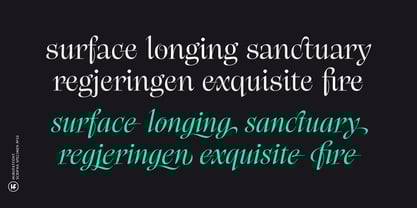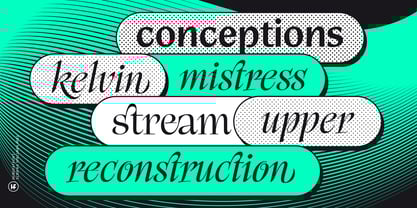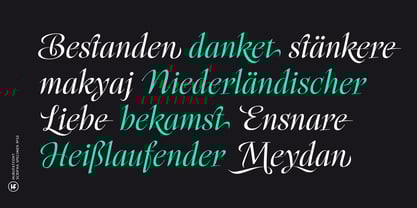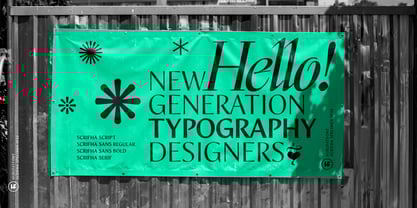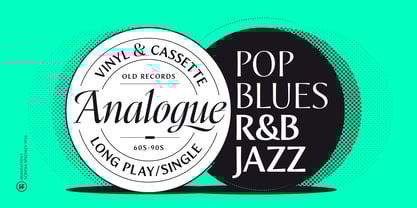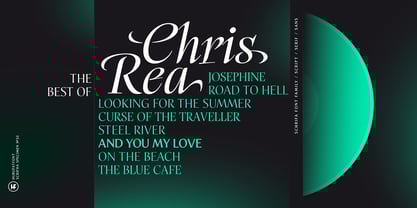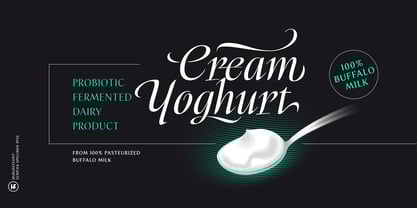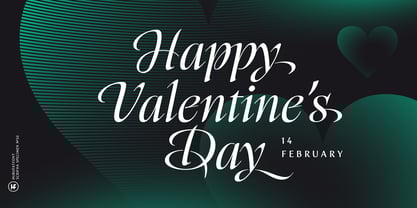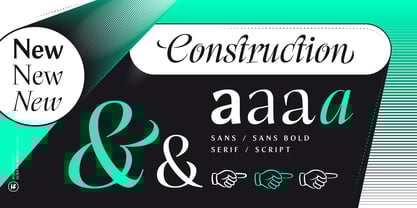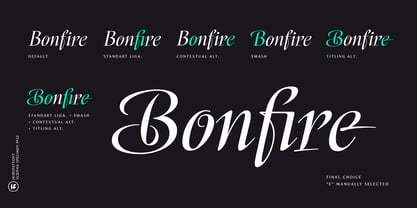
Scrifha
Scrifha is a heading font consisting of four styles. The leading actor is Scrifha Script. The other versions are designed as auxiliary. Ideal for new generation typography designs. It allows you to create effective headings thanks to its high contrast structure and rich opentype features.